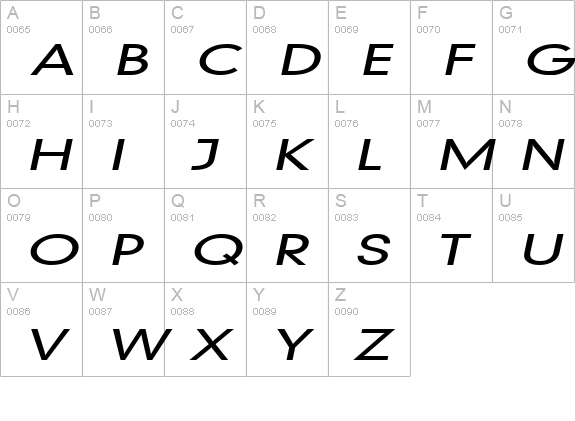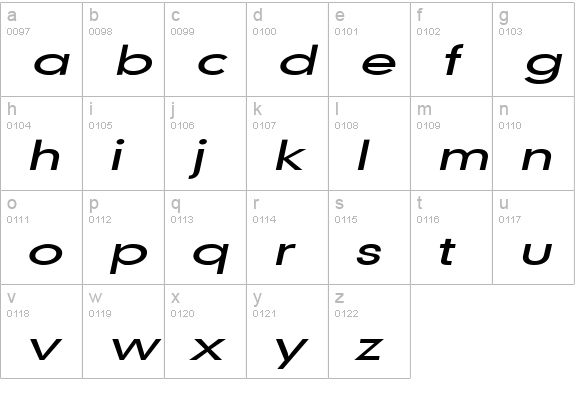
Geo 579 Extended Italic is a distinctive, extended-width, italic variant in the Geo typeface family \xE2\x80\x94 well suited to design and typography projects.
The Geo 579 Extended Italic font is a sleek and modern typeface that exudes sophistication and elegance. Its elongated letterforms and italic styling give it a unique and eye-catching appeal, making it perfect for adding a touch of class to any design project. With its clean lines and contemporary look, this font is versatile and can be used for a wide range of design applications, from branding to editorial design. The best part is that the Geo 579 Extended Italic font is completely free to download at FontsMarket.com. This means that you can easily access this stylish font for your projects without any cost. Whether you're a professional designer looking to elevate your work or a hobbyist seeking to enhance your creations, this font is a fantastic choice that won't break the bank. Don't miss out on the opportunity to enhance your designs with the Geo 579 Extended Italic font. Download it for free today at FontsMarket.com and let your creativity soar with this elegant and versatile typeface.